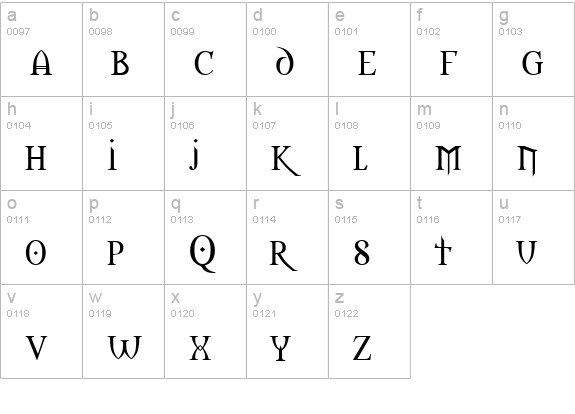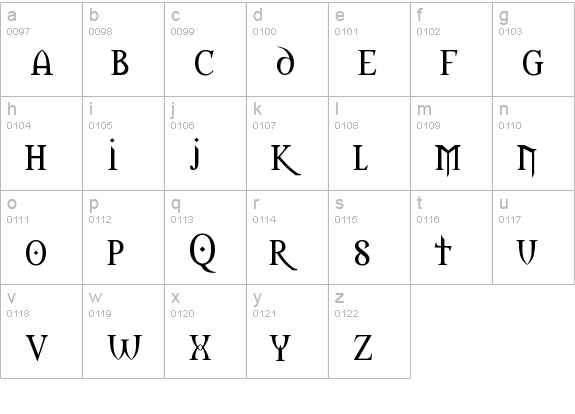
Morpheus Regular Font Details
Morpheus Regular is the standard, neutral variant in the Morpheus typeface family \xE2\x80\x94 well suited to general body text, paragraphs, and standard typographic work.
Morpheus Regular font is a versatile and stylish typeface that exudes elegance and sophistication. With its clean lines and classic design, Morpheus Regular is perfect for a wide range of design projects, from branding to editorial work. This timeless font offers a perfect balance between modernity and tradition, making it a must-have for any designer looking to add a touch of sophistication to their projects. What sets Morpheus Regular font apart is not only its aesthetic appeal but also the fact that it is available for free download at FontsMarket.com. Yes, you read that right - this exquisite font can be yours at no cost! Whether you're a seasoned professional or a design enthusiast, Morpheus Regular font is a valuable addition to your font library. So why wait? Head over to FontsMarket.com now and elevate your designs with the timeless beauty of Morpheus Regular font.